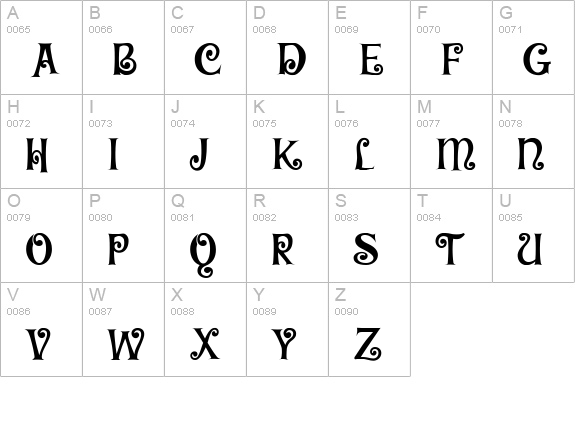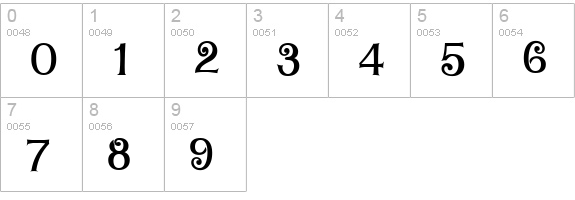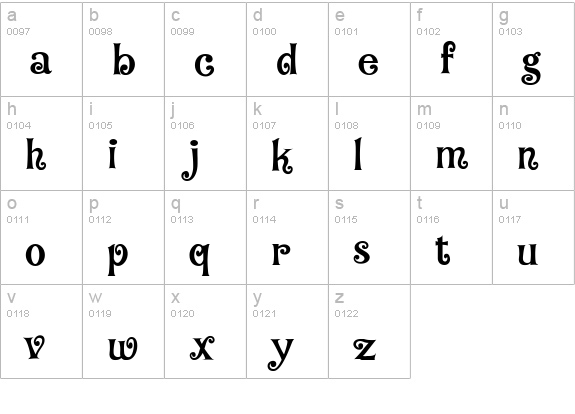
BaileywickCurlyJF Font Details
BaileywickCurlyJF font is a charming and whimsical typeface that exudes elegance and playfulness. With its graceful curls and intricate details, this font is perfect for adding a touch of sophistication to any design project. Whether you're creating invitations, greeting cards, or branding materials, BaileywickCurlyJF font will surely make a statement. The best part? BaileywickCurlyJF font is completely free to download at FontsMarket.com. Embrace the beauty and versatility of this delightful font without any cost. Let your creativity shine with BaileywickCurlyJF font and bring your designs to life with its unique and captivating style. Download now and elevate your projects with this stunning typeface.